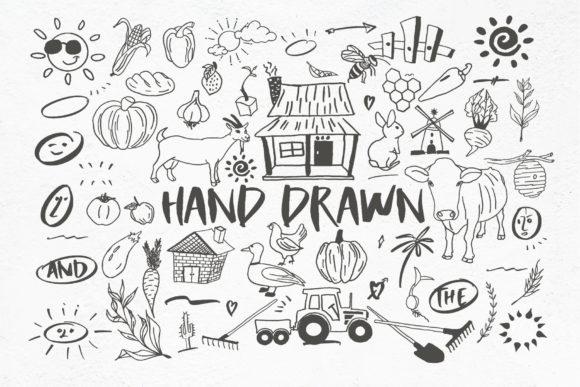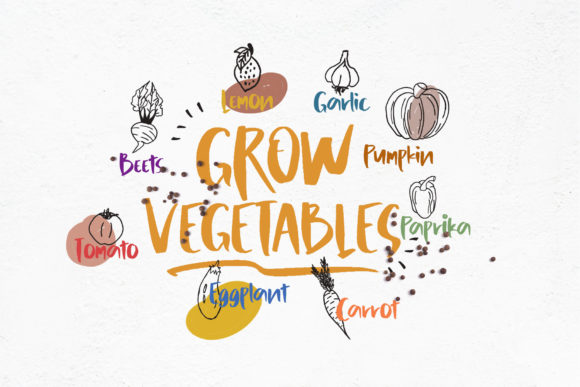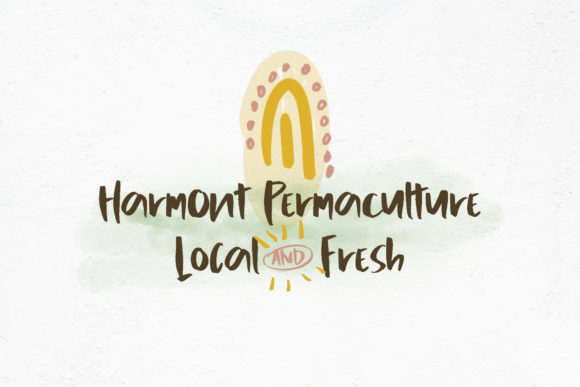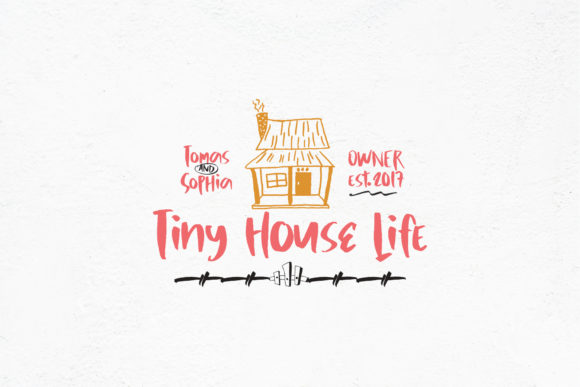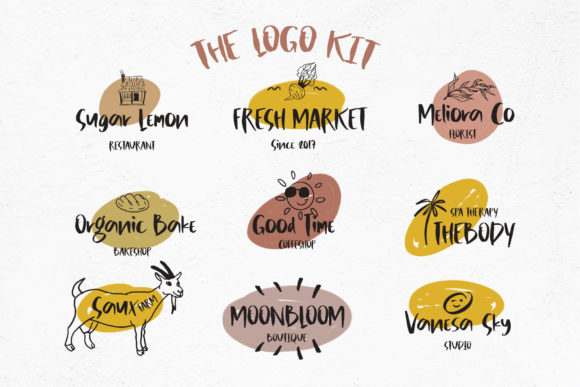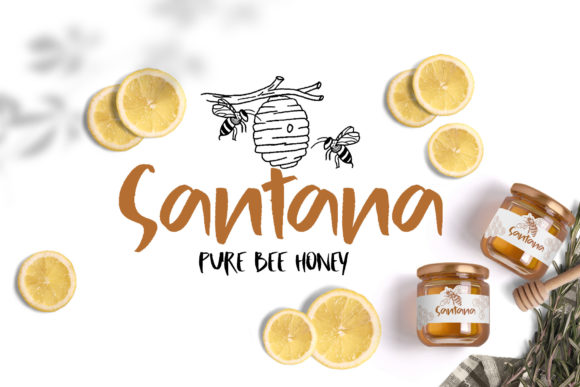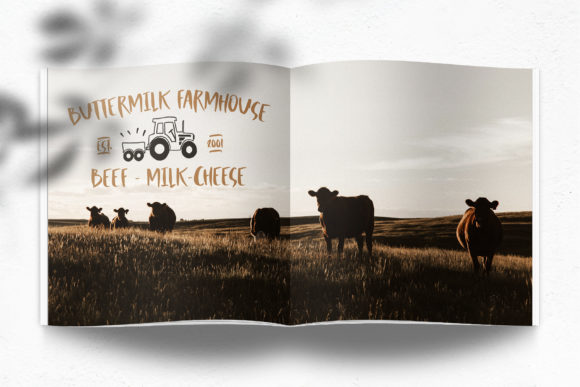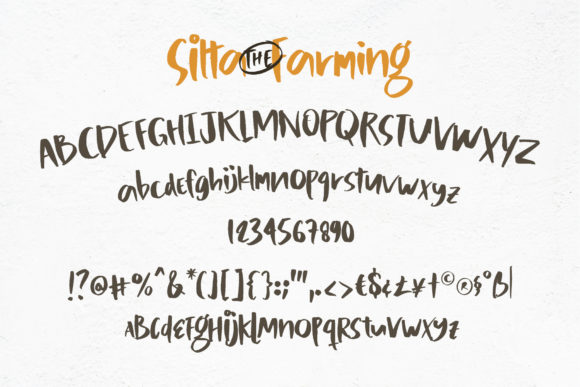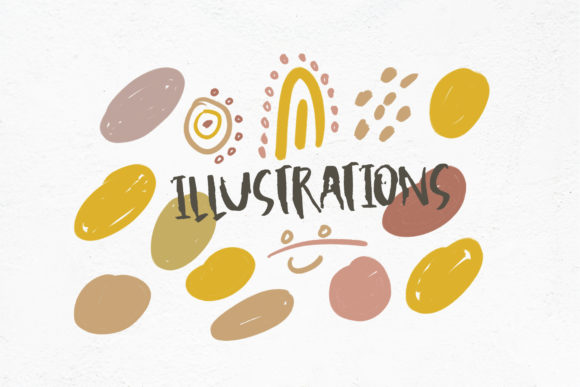
Silta the Farming Font
Silta the Farming is a cool and casual script font that exudes elegance and class. This font was particularly crafted for those who need a beautiful and refreshing look to their designs. Silta The Farming is PUA encoded which means you can access all glyphs and swashes with ease!